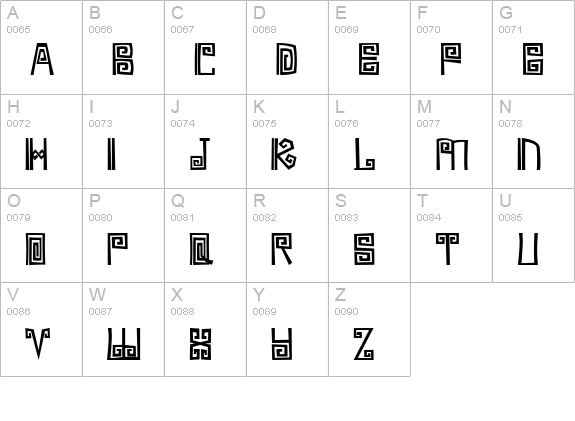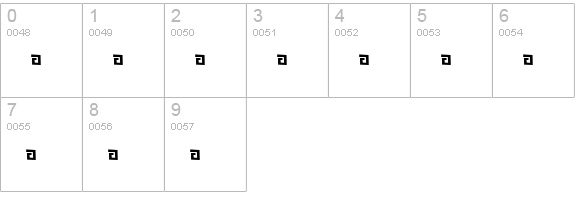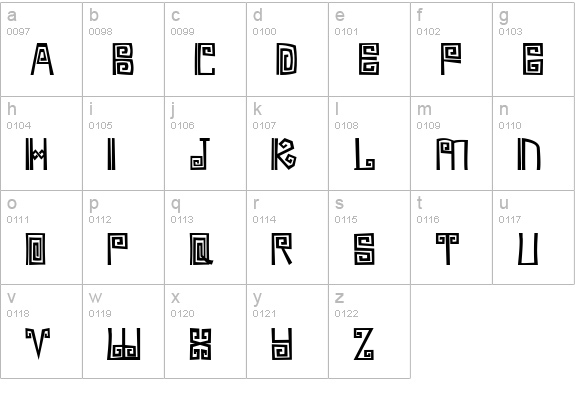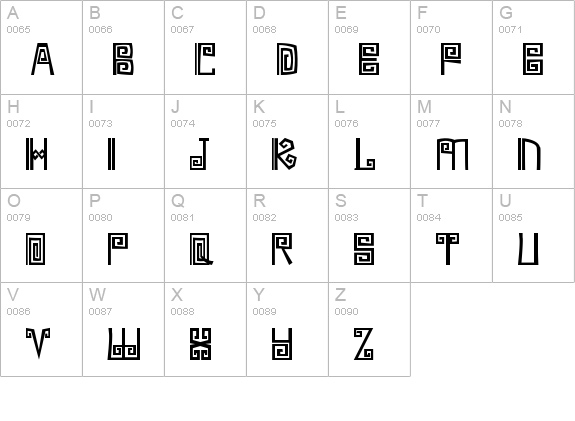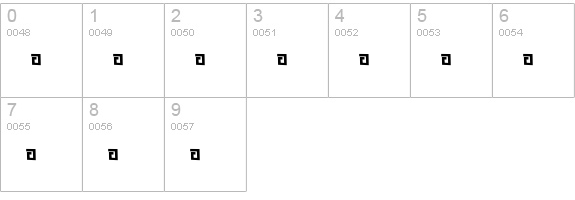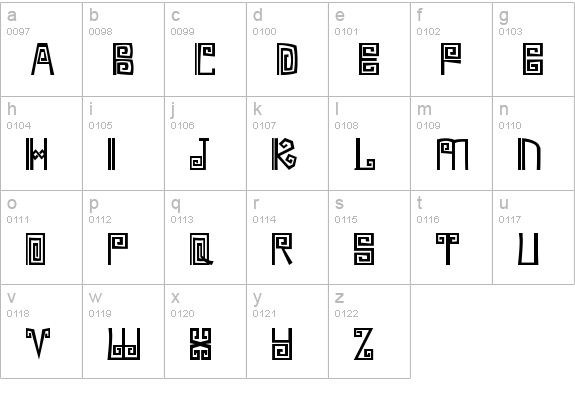
Ambages Font Details
Ambages font is a versatile and elegant typeface that exudes sophistication and style. With its unique combination of sleek lines and subtle curves, Ambages is perfect for a wide range of design projects, from branding to editorial design. This font is ideal for creating eye-catching headlines, stylish logos, and elegant invitations. What sets Ambages apart is its seamless blend of modernity and classic appeal, making it a timeless choice for any design aesthetic. Whether you're working on a sleek corporate identity or a romantic wedding invitation, Ambages font will elevate your project to new heights. Best of all, Ambages font is available for free download at FontsMarket.com, allowing you to access this premium typeface without any cost. Don't miss out on the opportunity to add Ambages to your font collection and take your designs to the next level.